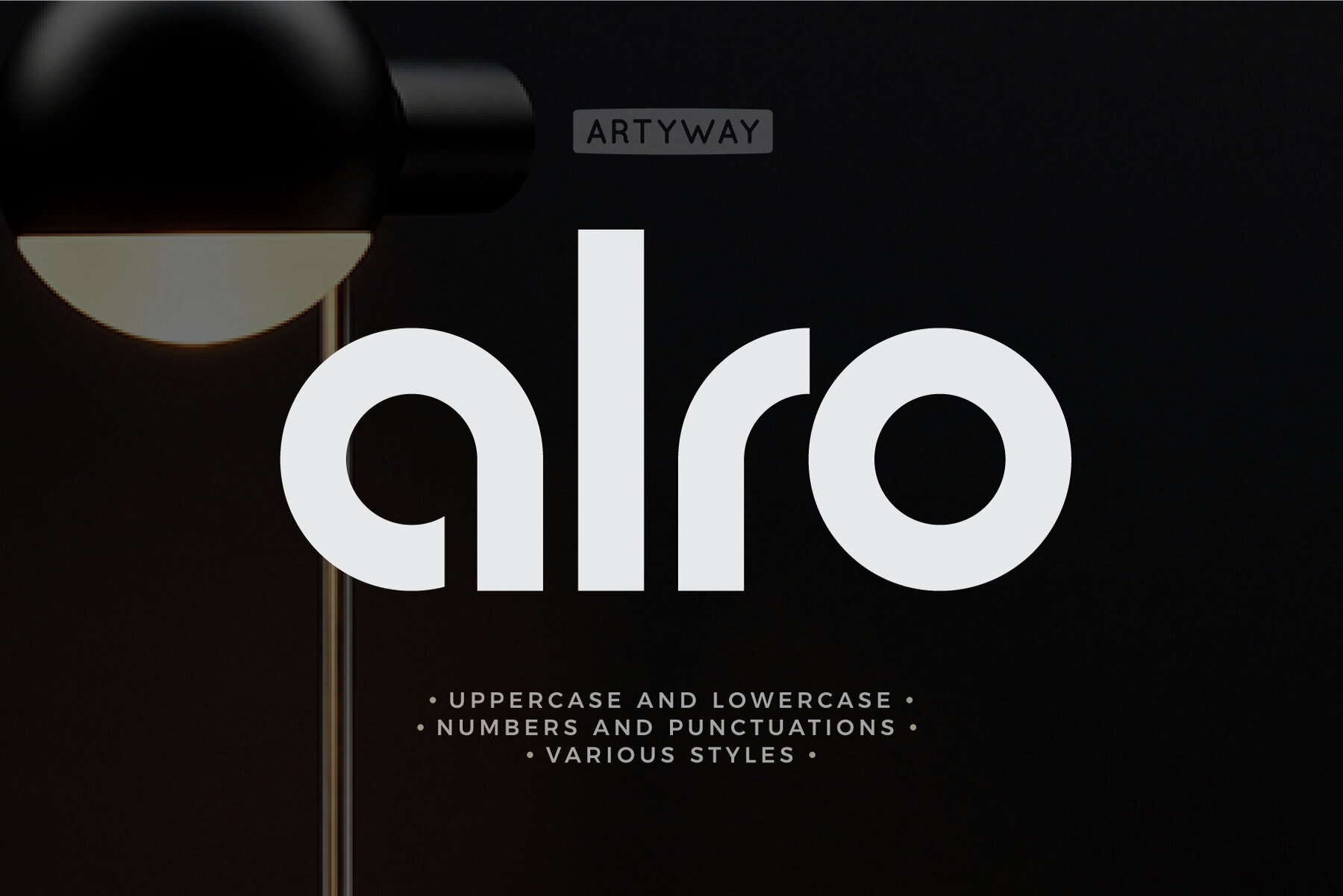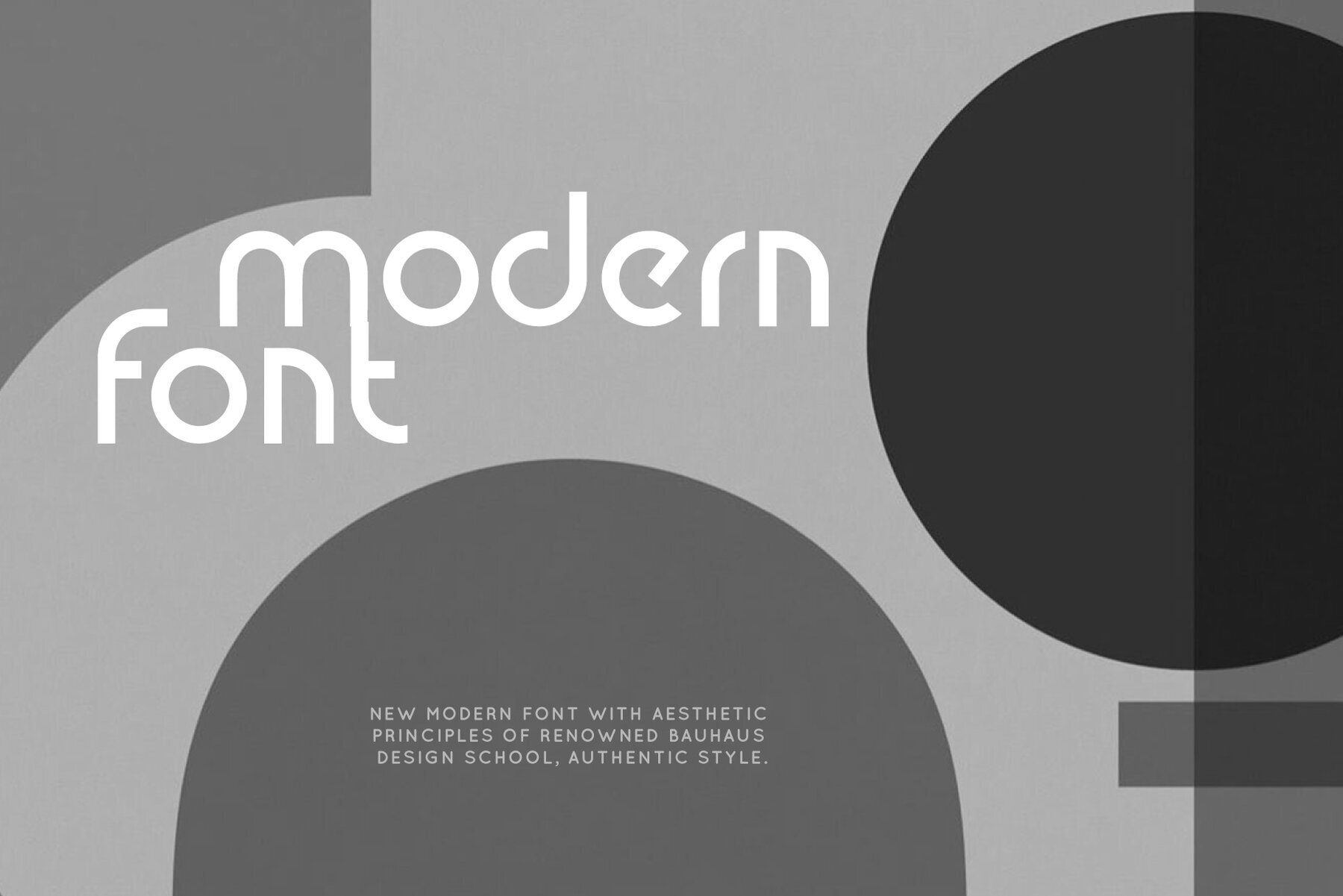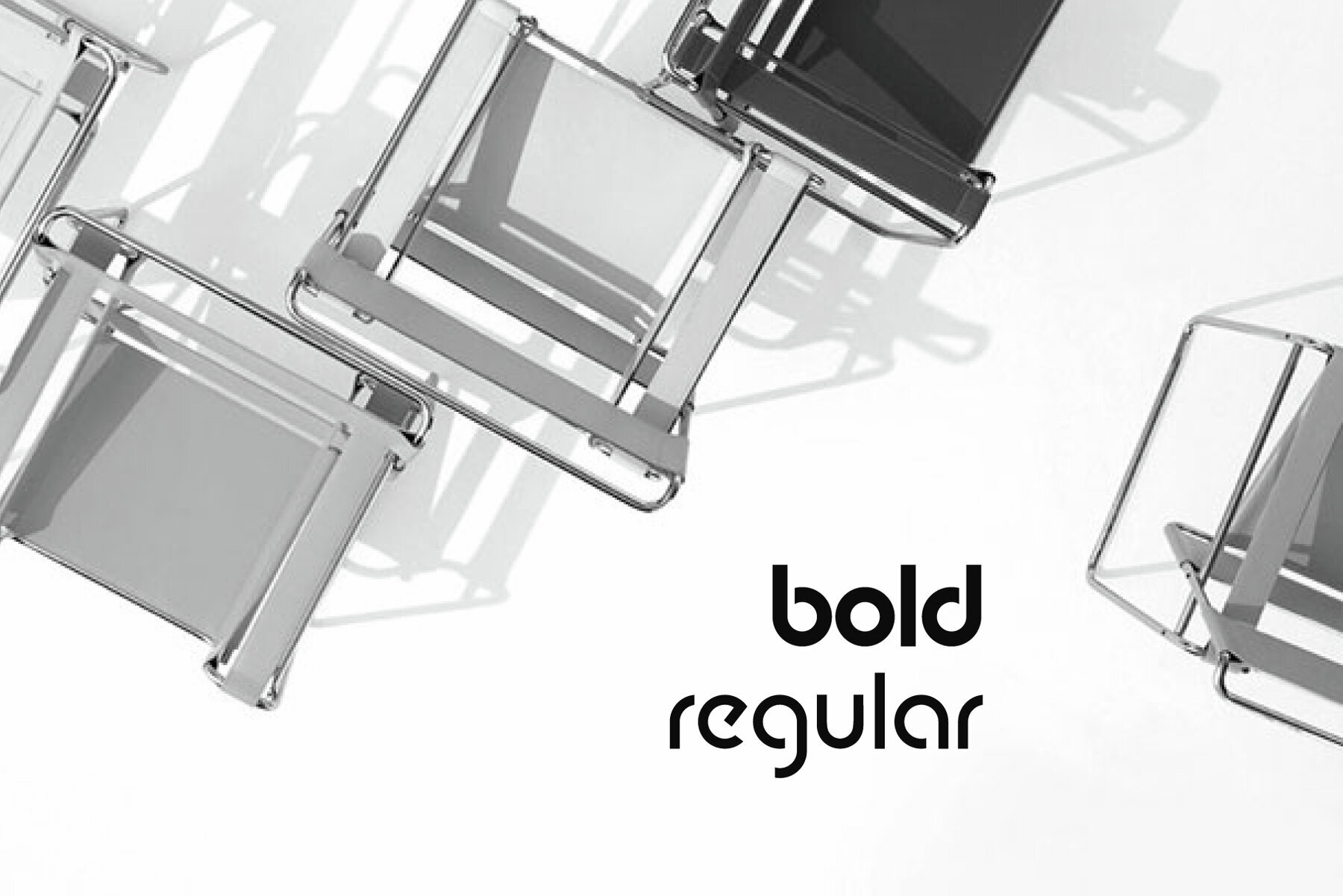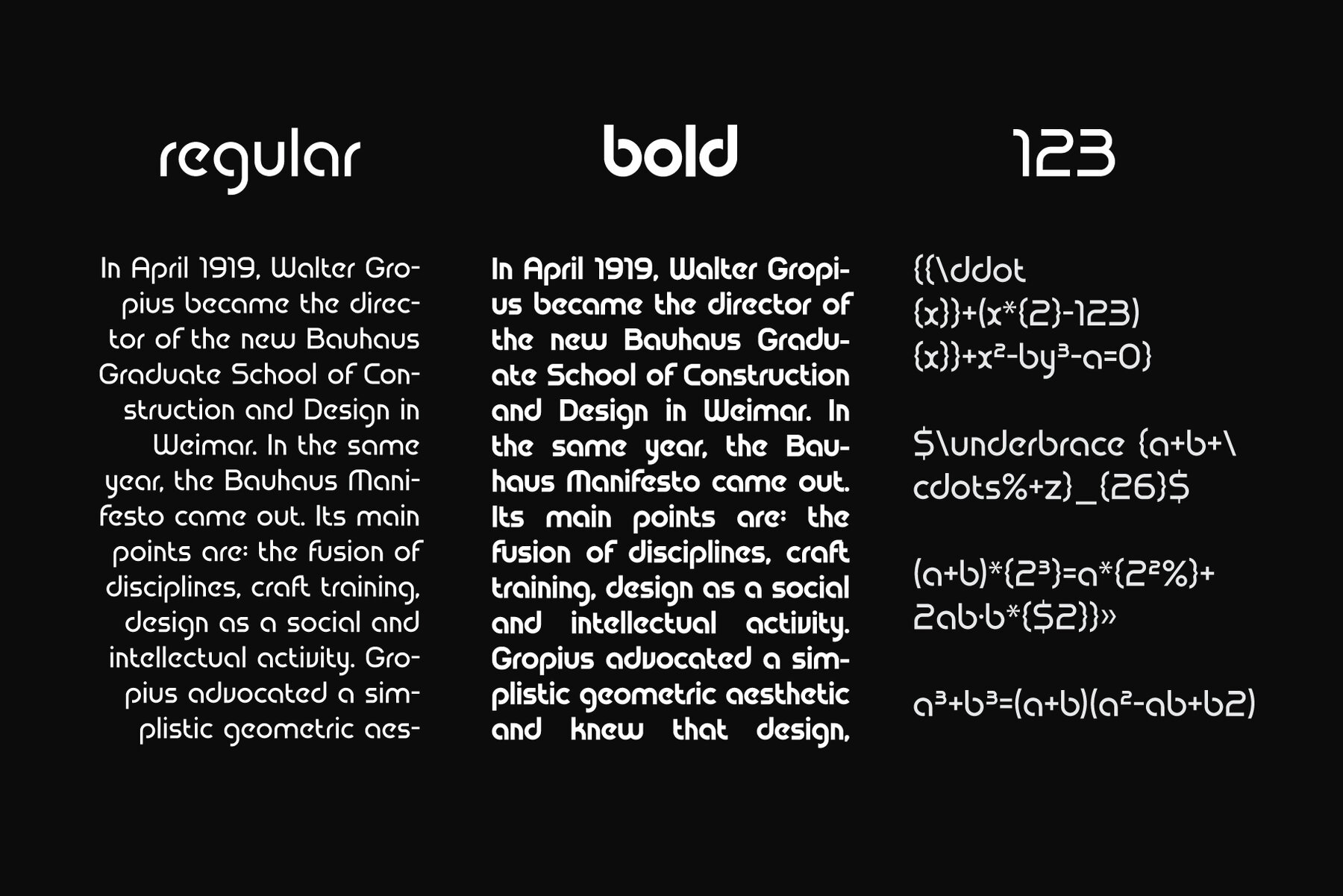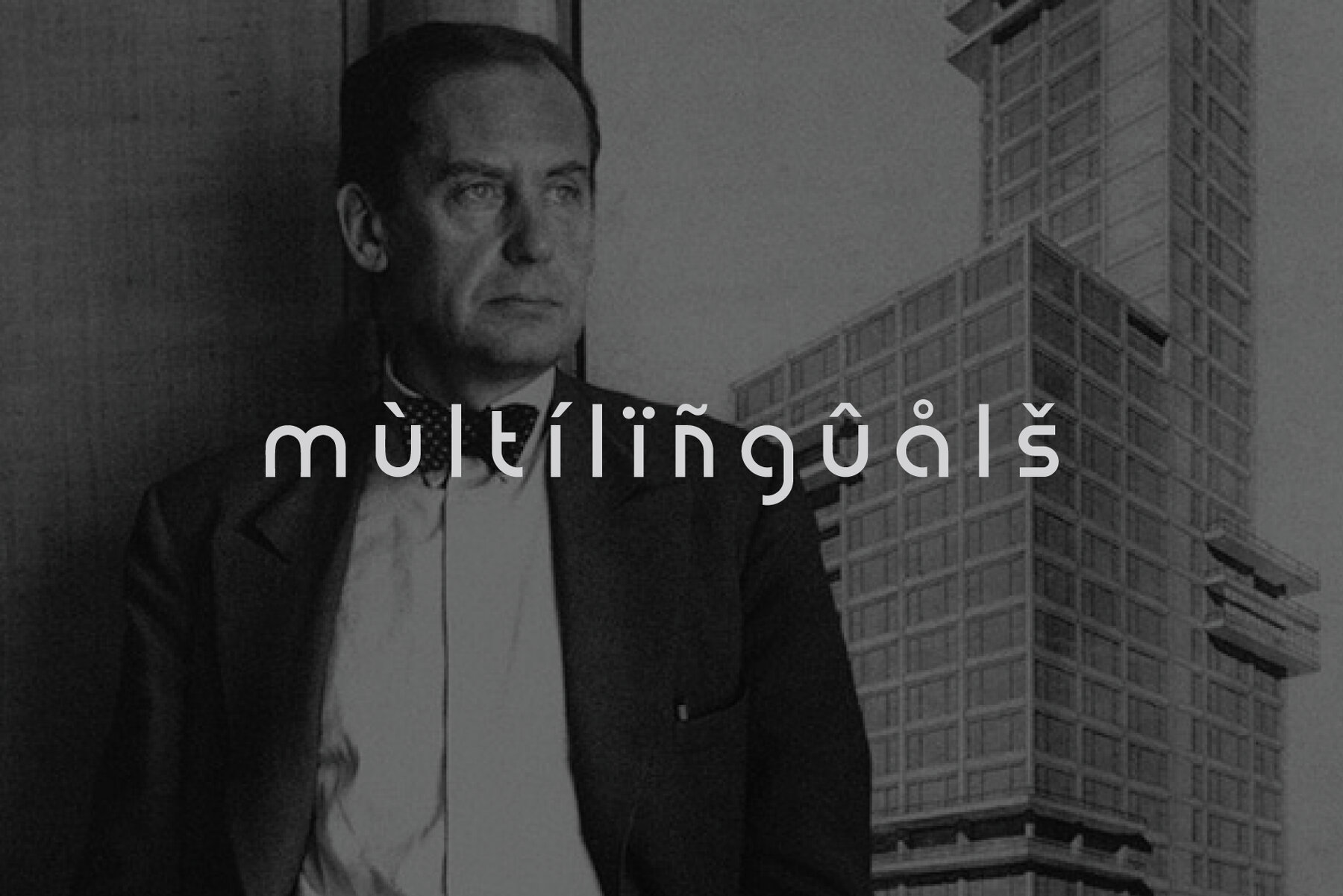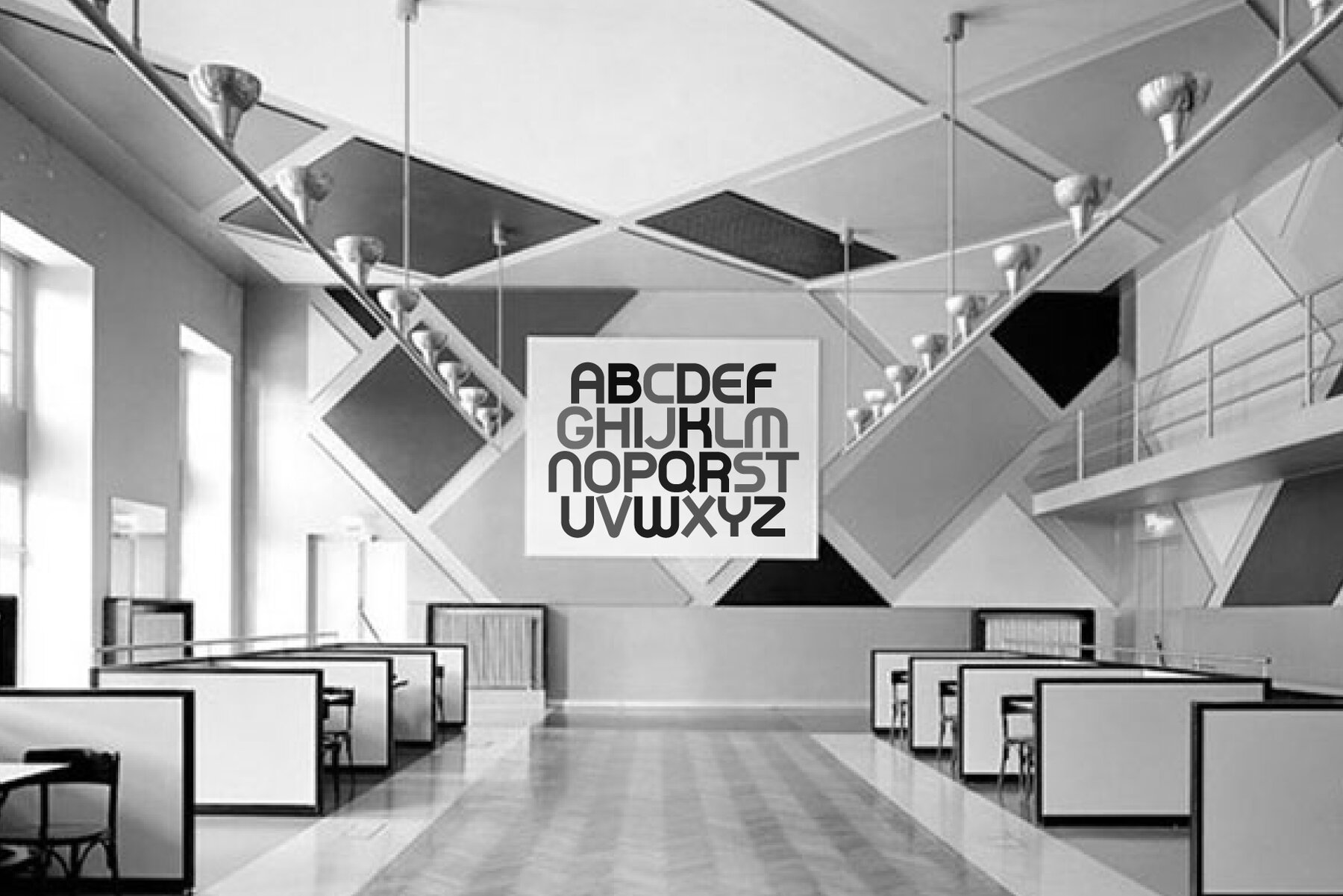
Alro Font
Perfect for minimalist design concepts, Alro offers a refined bauhaus style that will elevate your projects. Combine one or two styles to craft something truly exciting and unique.Alro: Elegant Rounded Font for Minimalist Designs